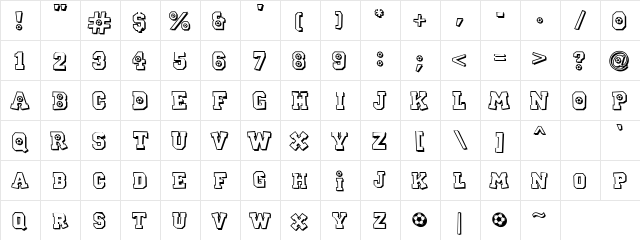
CK Sports Soccer Regular Free Font
CK Sports Soccer Regular
Design Context for CK Sports Soccer
CK Sports Soccer brings high-energy athletic personality to the page - its confident, muscular forms are built for impact.